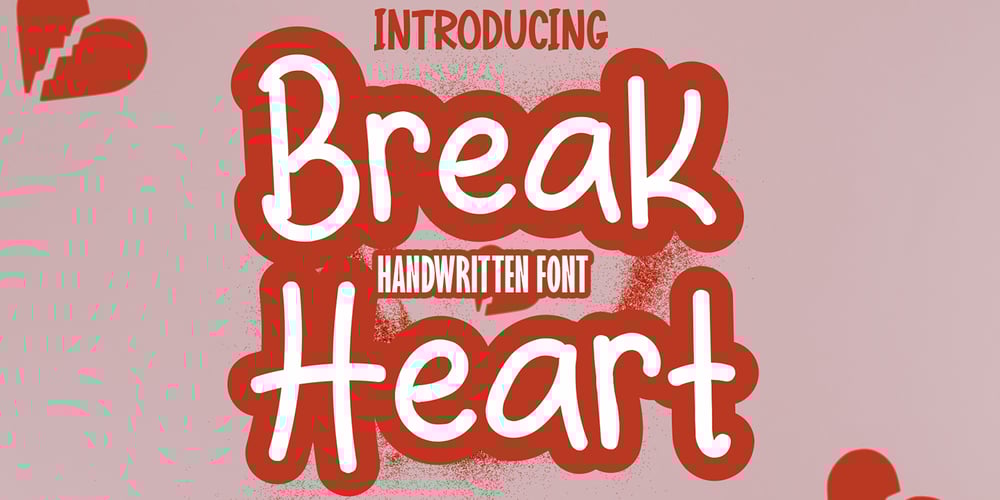
Break Heart Handwritten Font Family was designed by Sipanji and published by Sipanji21. Break Heart Handwritten contains 1 styles and family package options. “Break Heart Handwritten” is a natural handwritten font that captures the essence of authentic penmanship. With its flowing and organic letterforms, this font emulates the beauty and imperfections of human handwriting. Whether used for projects, greeting cards, or digital artworks, “Break Heart Handwritten” adds a genuine and heartfelt touch to your designs, making them feel unique.